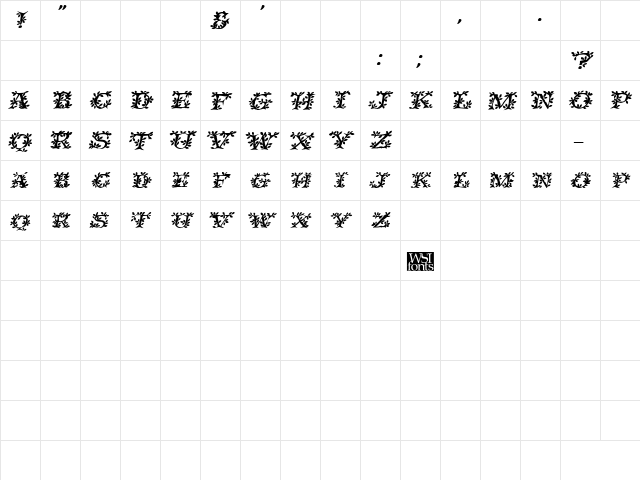
IvyDisplayCaps Bold Italic Font Preview
Design Context for IvyDisplayCaps Typeface
IvyDisplayCaps is built around its visual character rather than neutral utility — its distinctive forms are designed to make an impression at display sizes. The slanted form adds forward momentum and visual energy. Its bold stroke weight gives it real presence on the page.
Font Pairing: Pair with a clean neutral sans-serif for body copy to let IvyDisplayCaps's character lead without overwhelming the composition.
Pro Tip: Treat IvyDisplayCaps as the centrepiece of your typographic hierarchy. One strong heading set in a decorative face can carry an entire layout.